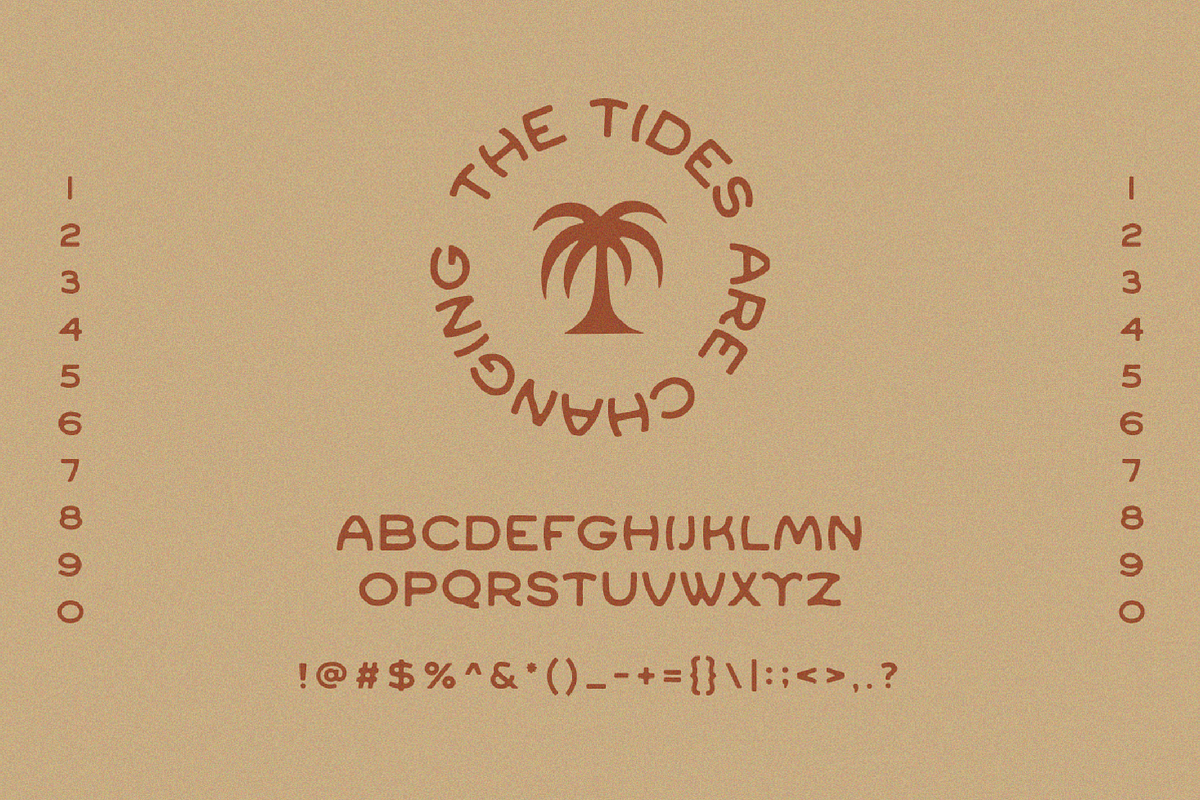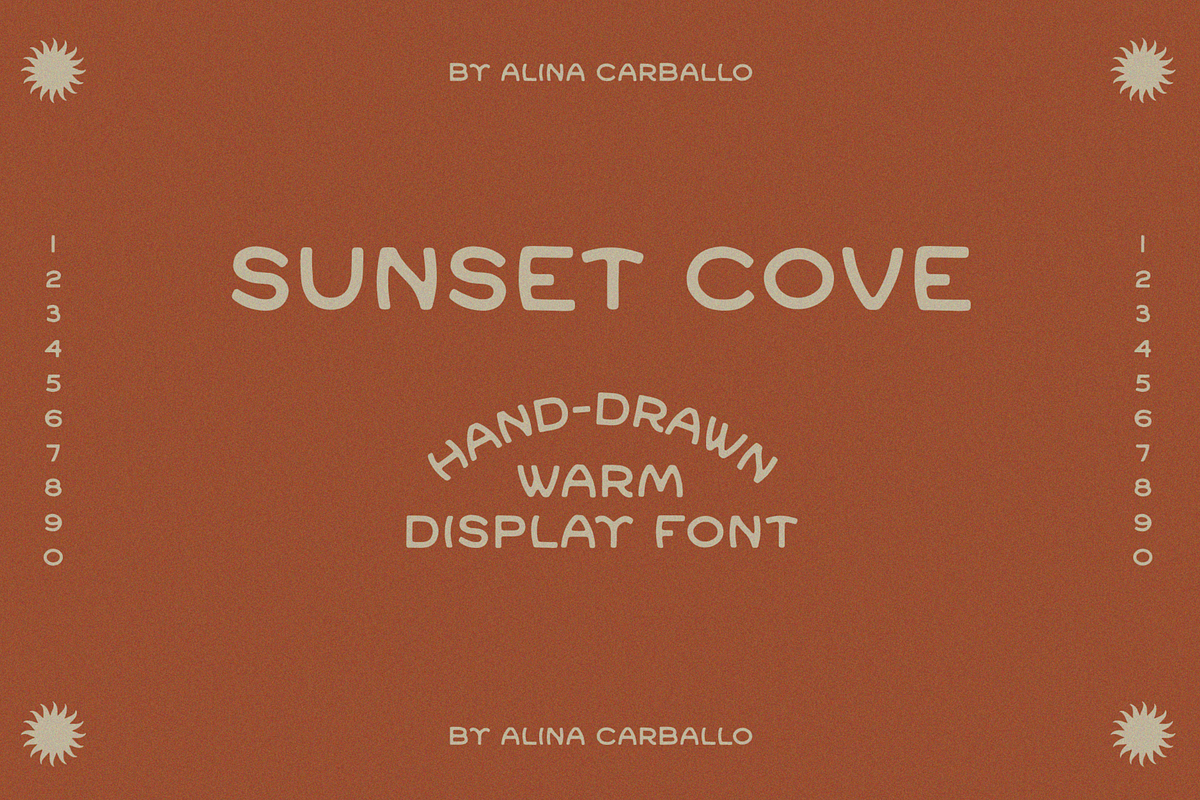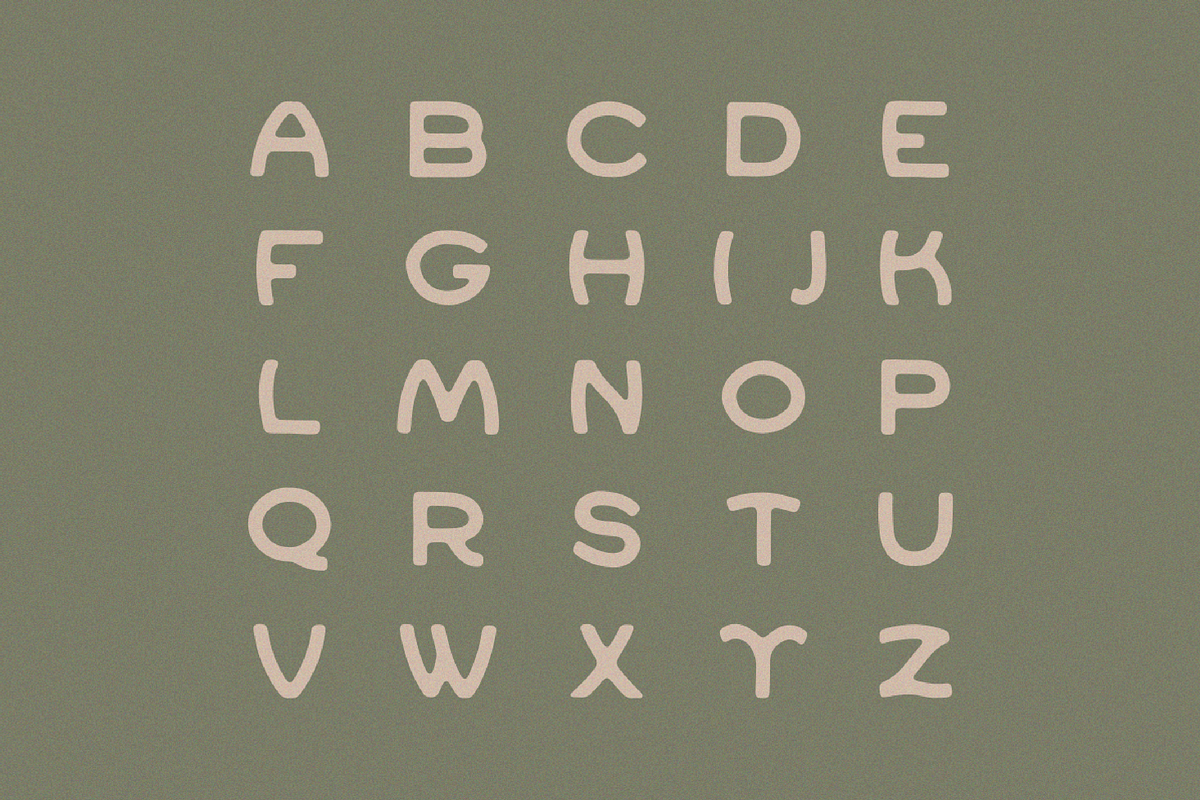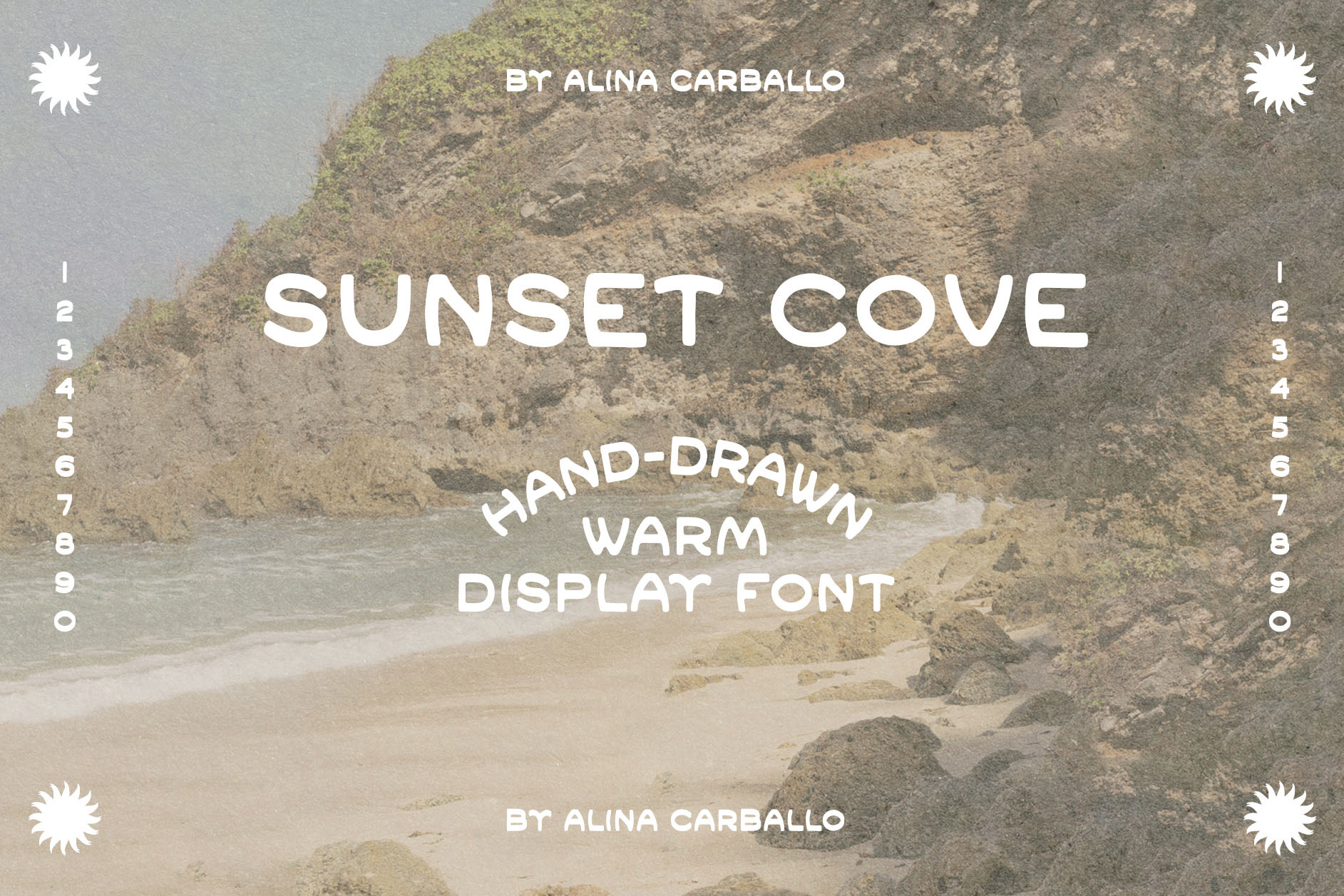
Sunset Cove Typeface
Sunset Cove" is a typeface that exudes the casual charm and warmth of a seaside escape, perfect for evoking the serenity of beachside sunsets in any creative project. With its handcrafted feel, each rounded character paints a picture of a laid-back coastal lifestyle, making it ideal for branding, social media graphics, or the inviting titles of a lifestyle publication.
Its soft, irregular contours and playful, organic shapes suggest a design crafted by the waves themselves, offering a whimsical yet sophisticated visual narrative that invites viewers to relax into the slow rhythm of shore life.
Whether used on a cafe menu or a boutique flyer, "Sunset Cove" delivers not just text, but an experience—a gentle reminder of the simple, sun-kissed pleasures of life by the water.